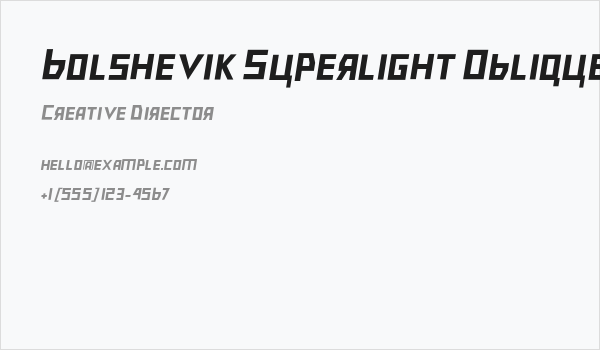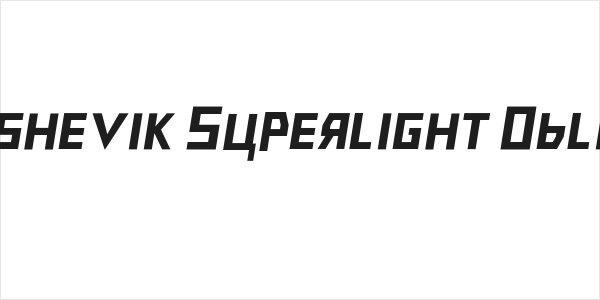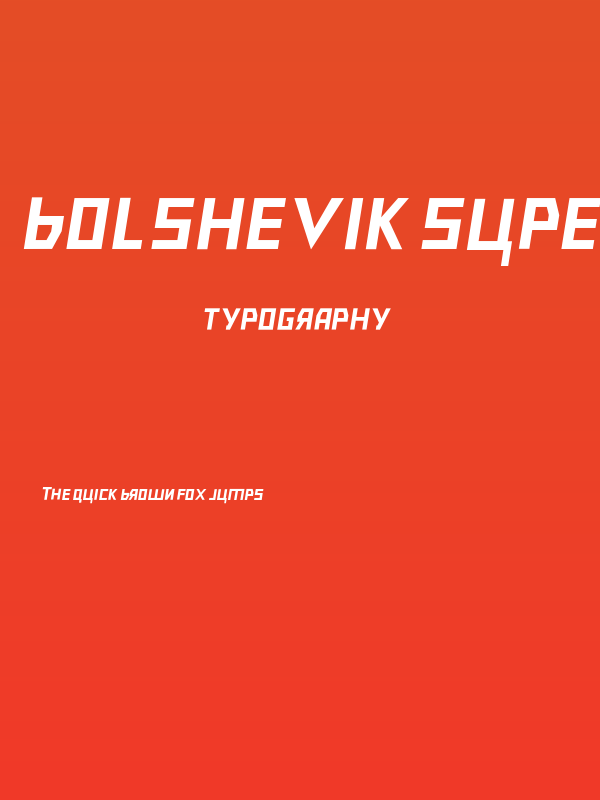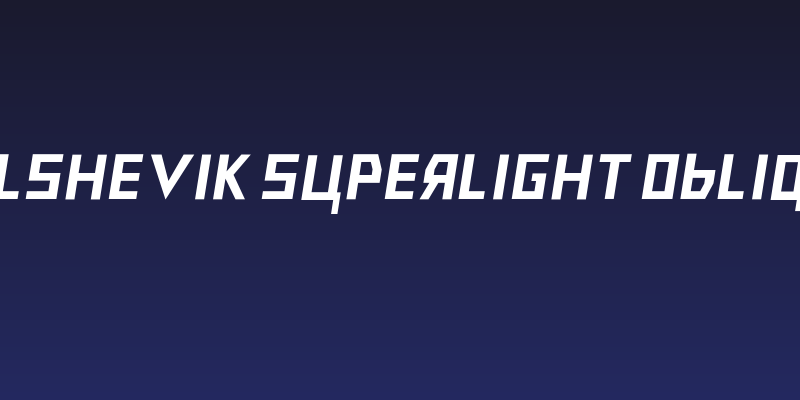
Bolshevik Superlight Oblique Font
Bolshevik Superlight Oblique Description
This font features a bold, geometric design with a distinct oblique slant, giving it a dynamic and forward-leaning appearance. The characters are constructed with sharp angles and clean lines, creating a modern and assertive look. The uppercase and lowercase letters maintain a consistent style, with the lowercase being slightly more compact. The numerals are equally bold and angular, ensuring readability and impact. Special characters are designed to match the overall aesthetic, providing a cohesive appearance across all glyphs. The font's strong presence makes it suitable for attention-grabbing headlines and impactful graphic design projects.
Proposed ProjectsIdeal for branding, posters, headlines, and any project requiring a strong, modern aesthetic.